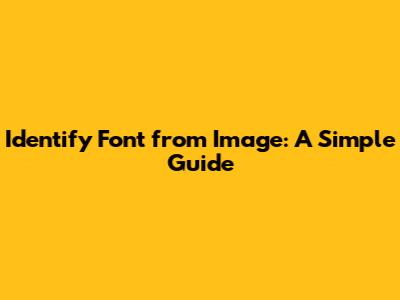
- Use High-Quality Images: The clearer the image, the better the tool can analyze the font. Avoid blurry or pixelated images.
- Crop the Image: Focus on the text you want to identify. Remove any unnecessary background elements.
- Ensure Good Contrast: Make sure the text stands out clearly from the background. High contrast helps the tool accurately detect the characters.
- Correct Orientation: Ensure the text is right-side up. Some tools struggle with rotated or skewed text.
- Isolate Individual Characters: If the tool has trouble with the entire block of text, try isolating individual characters.
- Serifs: Are they present? What shape are they (e.g., slab, bracketed, hairline)?
- Stroke Contrast: Is there a significant difference between thick and thin strokes?
- X-Height: How tall are the lowercase letters relative to the uppercase letters?
- Letter Shapes: Are there any unique curves, angles, or details in specific letters like "g," "a," or "e"?
- Spacing: How much space is between the letters? Is it consistent?
Hey guys! Ever stumbled upon a stunning font in an image and thought, "I gotta have that!" But how do you even begin to figure out what font it is? Well, you're in luck! In this article, we're diving deep into the world of font identification. We'll explore various super cool methods to help you pinpoint that elusive font from just an image. So, buckle up and get ready to become a font-detective!
Why Identify Fonts from Images?
Before we jump into the "how," let's quickly chat about the "why." Knowing how to identify fonts from images can be a total game-changer in various situations. If you're a designer, being able to quickly grab a font you see in a poster or website mockup can seriously speed up your workflow. Imagine seeing the perfect font in a vintage ad and instantly knowing what it is – talk about inspiration! Plus, it helps you maintain brand consistency. Suppose you're working with an existing brand, but you don't know which font they're using. Identifying it from their logo or marketing materials ensures everything you create aligns perfectly. And let's not forget personal projects! Maybe you're creating a custom invitation, designing a t-shirt, or just playing around with graphics. Identifying fonts opens up a world of creative possibilities, allowing you to replicate styles and experiment with new looks. Essentially, mastering this skill is like adding a superpower to your design arsenal!
Online Font Identification Tools
The digital world is packed with awesome tools, and font identification is no exception! Several websites specialize in helping you identify fonts from images quickly and efficiently. These tools usually work by analyzing the shapes and characteristics of the letters in your uploaded image and then comparing them to vast databases of fonts. Here's a rundown of some popular options:
WhatTheFont!
WhatTheFont! is like the OG of font identification tools. It's super user-friendly – you simply upload an image, and it attempts to automatically detect the text. If it doesn't get it quite right, you can help it out by manually selecting the characters. Once the text is identified, WhatTheFont! scours its extensive database to find the closest matches. One of the cool things about WhatTheFont! is that it's powered by MyFonts, one of the largest font marketplaces out there. This means its database is constantly updated with new fonts, increasing the chances of finding an accurate match. It's a go-to for many designers because it's generally pretty accurate and easy to use, even if you're not a tech whiz.
Font Squirrel's Matcherator
Font Squirrel's Matcherator is another excellent option, especially because it focuses on identifying free fonts. If you're on a budget or just love open-source resources, this is your jam. Like WhatTheFont!, you upload an image, and Matcherator analyzes the text. It's particularly good at handling images with clear, well-defined text. After processing, it shows you a list of fonts that closely resemble the one in your image, along with links to download them (for free!). Font Squirrel is also known for curating high-quality free fonts, so you can trust that you're getting good stuff. This tool is a lifesaver for projects where you need a specific look without breaking the bank.
Identifont
Identifont takes a slightly different approach. Instead of just uploading an image, Identifont asks you a series of questions about the font's characteristics. Things like: "Does the font have serifs?" "What's the shape of the uppercase G?" By answering these questions, you narrow down the possibilities until Identifont can suggest potential matches. This method can be super effective if you have a good eye for detail and can accurately describe the font's features. It's also useful when you don't have a clear image or when the online tools are struggling to find a match. Identifont feels a bit more like a detective game, which can be a fun way to identify fonts.
Using These Tools Effectively
To get the best results from these online tools, here are a few tips:
Mobile Apps for Font Identification
In today's mobile-first world, it's no surprise that there are apps to help you identify fonts on the go. These apps are super handy when you spot a cool font in the wild and want to know what it is right away. Here are a couple of noteworthy mentions:
Adobe Capture
Adobe Capture is a powerhouse app from Adobe that does a lot more than just identify fonts, but its font recognition feature is seriously impressive. You can use the app to snap a photo of text, and it will quickly identify the font, as well as provide options to save it to your Adobe Creative Cloud library. This is a huge plus if you're already part of the Adobe ecosystem, as it seamlessly integrates with apps like Photoshop and Illustrator. Beyond fonts, Adobe Capture can also capture colors, patterns, and even create 3D textures from real-world objects. It's like having a Swiss Army knife for designers in your pocket!
WhatTheFont App
Yep, the same WhatTheFont! we talked about earlier also has a mobile app. It offers the same functionality as the website but with the convenience of using your phone's camera. Just point, shoot, and let the app do its thing. The mobile app is great for quickly identifying fonts when you're out and about. Whether you're browsing a bookstore, walking down the street, or visiting a museum, you can instantly identify any font that catches your eye. It's a must-have for font enthusiasts who want to stay curious and creative wherever they go.